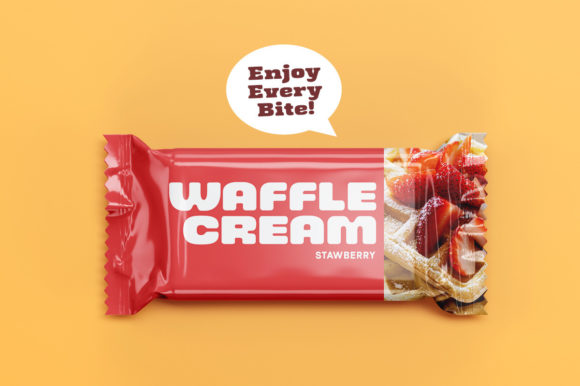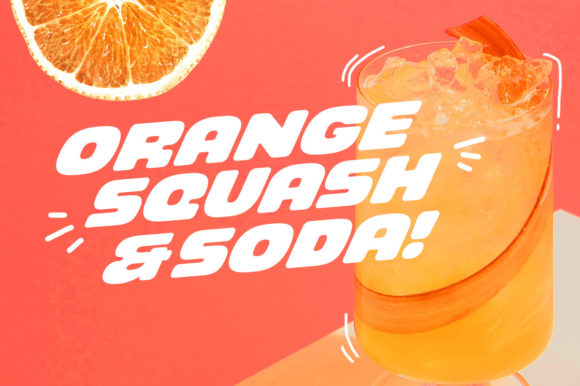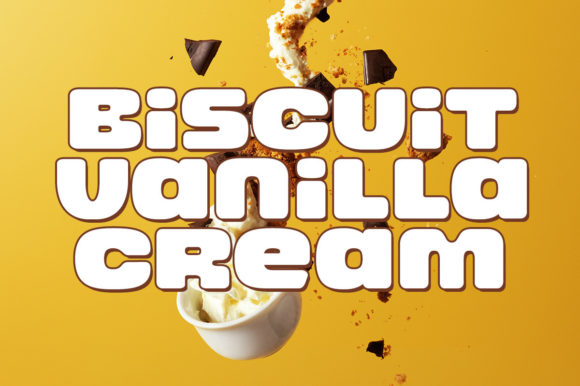
Introducing Coral Candy Font: The Perfect Choice for Fun and Playful Designs
Are you looking for a font that can add a touch of fun and playfulness to your designs? Look no further than Coral Candy Font! This bold font is perfect for cartoon or child themes that need a standout font, as well as various formal forms such as invitations, labels, logos, magazines, books, greeting/wedding cards, packaging, fashion, makeup, stationery, novels, labels, or any type of advertising purpose.
What Makes Coral Candy Font So Special?
Coral Candy Font is a unique and eye-catching font that is designed to make your designs stand out. Its fun and playful looks make it perfect for designs that require a youthful and energetic feel. The font is carefully crafted to be bold and attention-grabbing, making it ideal for headlines, titles, and other prominent text elements.
Perfect for Cartoon or Child Themes
Coral Candy Font is particularly well-suited for cartoon or child themes. Its playful and whimsical design makes it perfect for children’s books, nursery rhymes, and other kid-friendly content. The font’s bold and colorful appearance is sure to capture the attention of young readers and add a touch of fun to your designs.
Ideal for Formal and Informal Designs
But Coral Candy Font is not just limited to cartoon or child themes. Its versatility makes it suitable for a wide range of design applications, including formal and informal designs. Use it for:
- Invitations: Add a touch of fun and playfulness to your invitations with Coral Candy Font.
- Labels: Create eye-catching labels for products, gifts, or other items.
- Logos: Use Coral Candy Font to create a bold and memorable logo for your brand.
- Magazines and Books: Add a touch of fun and personality to your magazine or book designs.
- Greeting and Wedding Cards: Create beautiful and unique greeting and wedding cards with Coral Candy Font.
- Packaging: Use Coral Candy Font to create eye-catching packaging for your products.
- Fashion and Makeup: Add a touch of glamour and fun to your fashion and makeup designs.
- Stationery: Create fun and playful stationery with Coral Candy Font.
- Novels: Use Coral Candy Font to add a touch of personality to your novel designs.
Why Choose Coral Candy Font?
So why choose Coral Candy Font for your designs? Here are just a few reasons:
- Unique and Eye-Catching Design: Coral Candy Font has a unique and eye-catching design that is sure to capture the attention of your audience.
- Versatility: Coral Candy Font is suitable for a wide range of design applications, from formal to informal designs.
- Fun and Playful: Coral Candy Font adds a touch of fun and playfulness to your designs, making it perfect for designs that require a youthful and energetic feel.
In conclusion, Coral Candy Font is a bold and fun font that is perfect for designers and crafters looking to add a touch of playfulness to their designs. Its versatility, unique design, and ease of use make it an ideal choice for a wide range of design applications. Whether you’re creating cartoon or child themes, formal or informal designs, Coral Candy Font is sure to make your designs stand out.